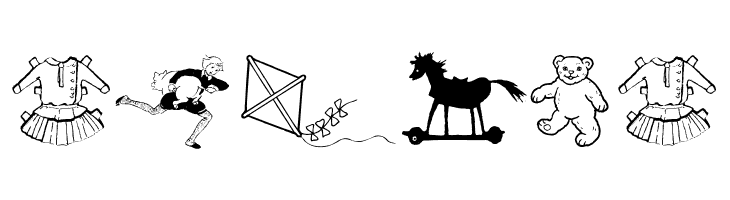
• KidsDrawingsTwo
A dingbat font of hand-drawn children's drawings and playful scenes.
• KidsFirstABC
A playful, hand-drawn font with tall, narrow letters and a whimsical style.
• Kidsfontone
A playful, hand-drawn font featuring whimsical stick figures and doodles.
• KidSignsThree
A whimsical, cartoon-like font with playful, exaggerated characters.
• KidsKids
A pictogram font with playful, child-themed illustrations.
• KidsPhantasies
Whimsical, childlike dingbat font with playful illustrations.
• KidsStuffAdded
Whimsical dingbat font with playful children's illustrations.
• Kinderkinder
A decorative font made of cartoon children forming each character.
• KinderKinderAbsurdo
A decorative font made of cartoon children forming each letter and symbol.
• Kinderkram
A playful, hand-drawn font with cartoon-like characters.